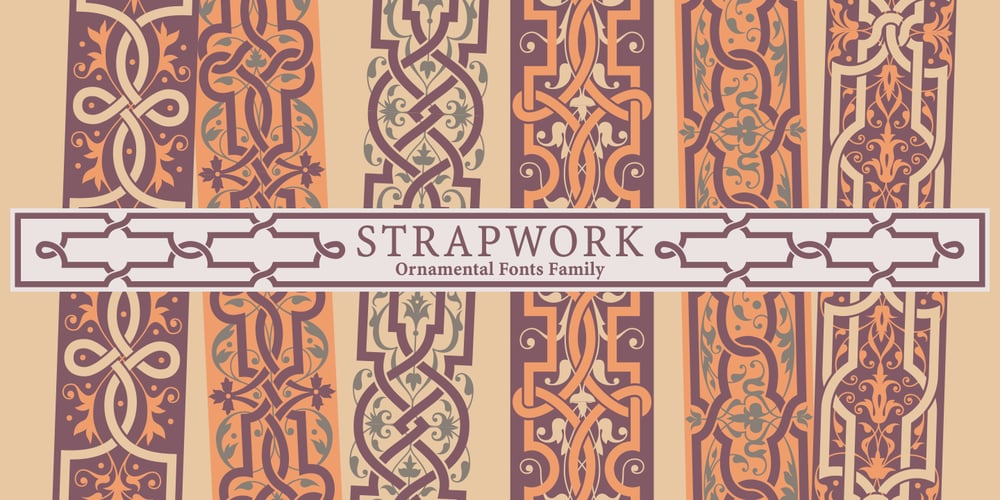
Strapwork Font Family was designed by Lukyan Turetskyy and published by 2D Typo. Strapwork contains 4 styles and family package options. The Strapwork is a symbolic font with the ornaments from the 16th century Mannerism era. These type of ornaments are called Strapwork and are combined with the Moreske ornament. Together they create a rich and refine style. As a prototype for this font I took the tables of ornament examples by etcher Balthasar Bos (1554). The font contains high quality vector graphics with a special attention paid to details. This collection consists of many friezes (borders). There are more than ten basic motifs and a great number of combinations. The ribbon elements are easily laid out by typing the combination of letters. The four typefaces help to combine ornaments in various tones and colors. By overlaying plants elements with ribbon elements you can get a multicolor richness and combinations variety. The font comes with a detail documentation and examples in PDF format. The Strapwork ornaments will ideally suit your needs in graphic design, textile industry or various decorations. The Strapwork font can be easily used not only in traditional approach but also in grunge stylistics, which will enrich your compositions.